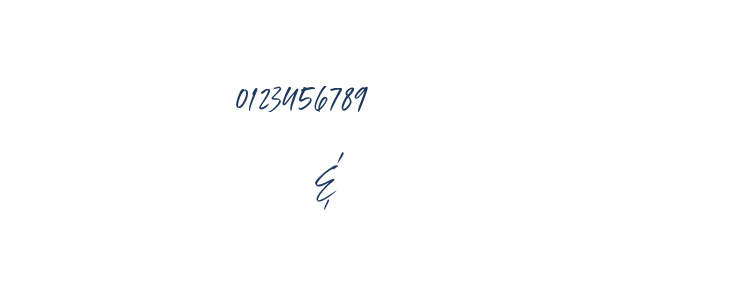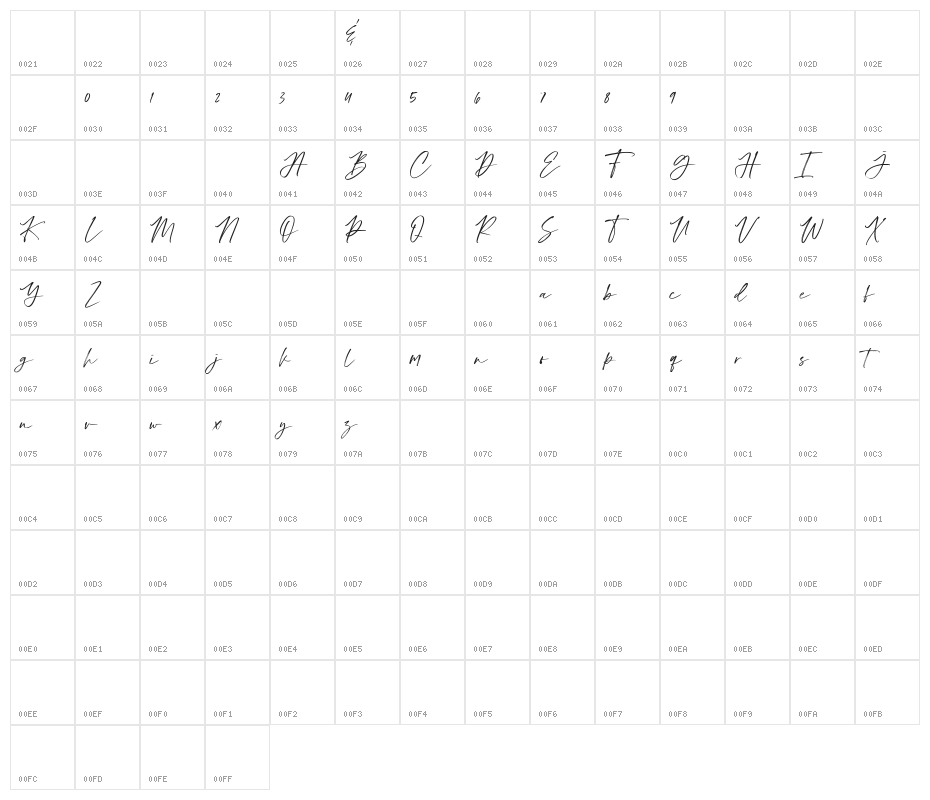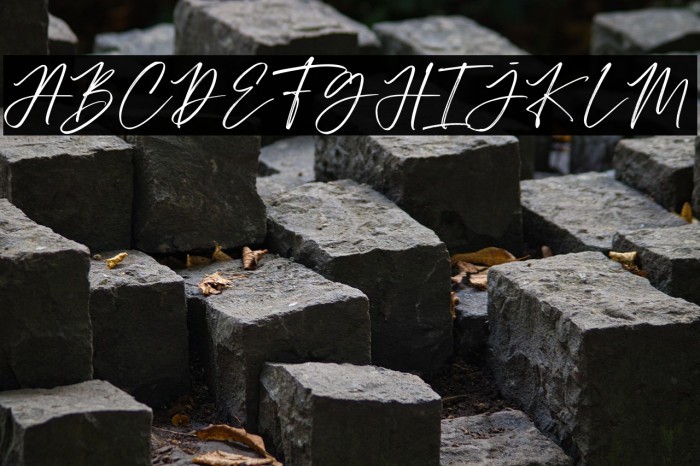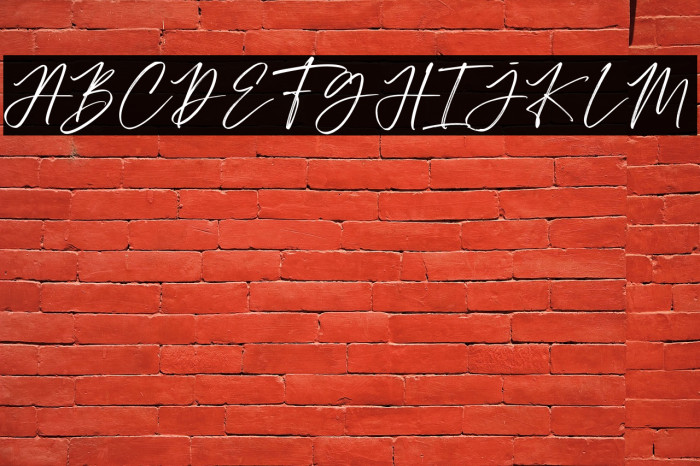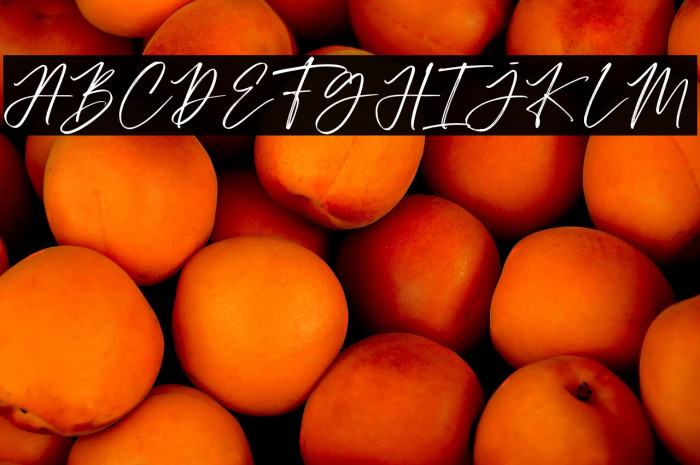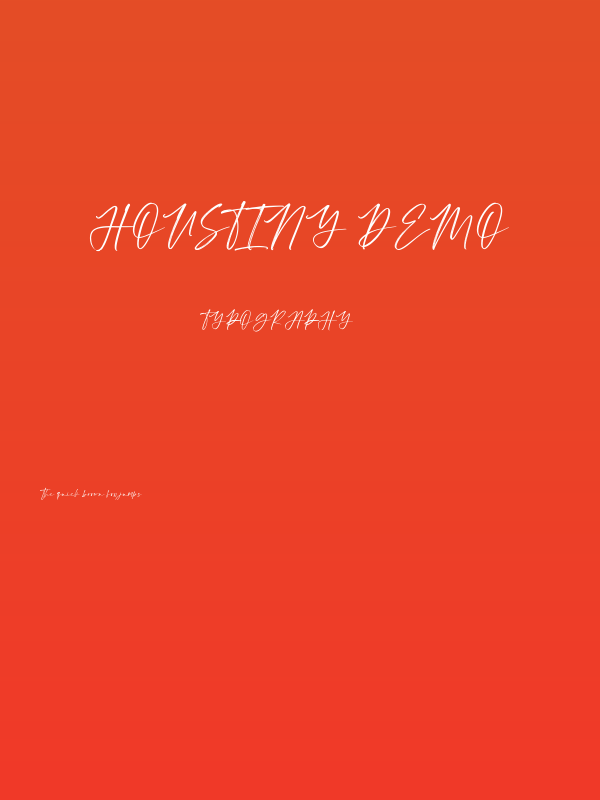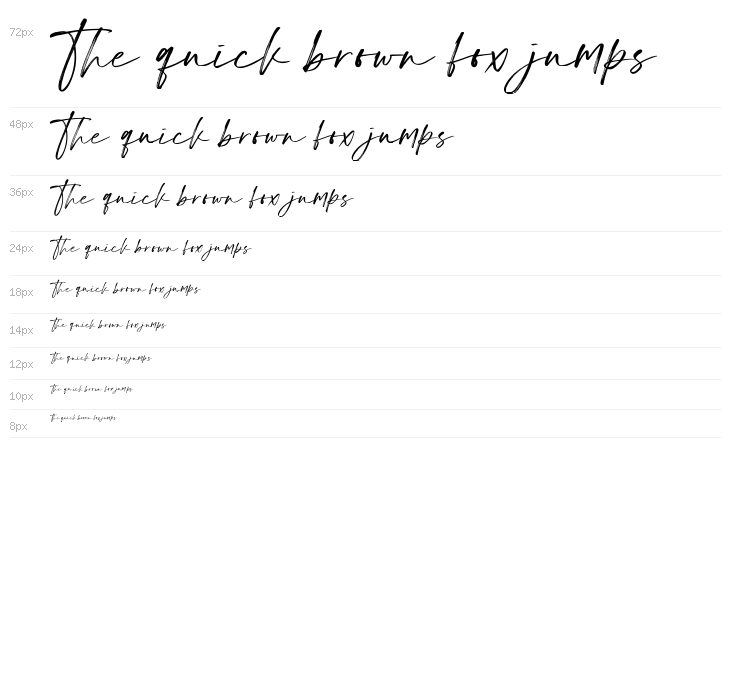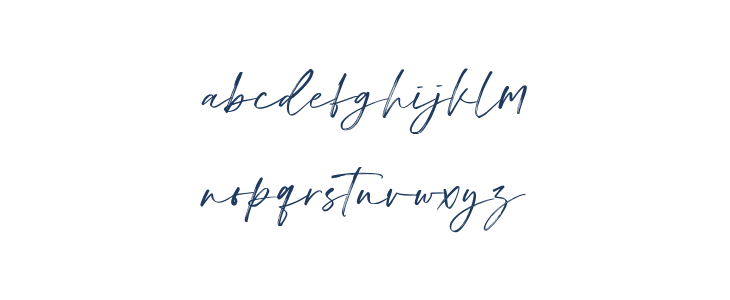
Houstiny Demo Font
Houstiny Demo Description
This font exudes a modern and elegant handwritten style, characterized by its fluid and cursive letterforms. The uppercase letters are bold and sweeping, with a graceful flow that suggests a sense of movement and sophistication. The lowercase letters maintain a consistent style, offering a seamless transition between characters. The numerals are clear and distinct, complementing the overall aesthetic. Special characters are thoughtfully designed to match the font's elegant theme. This font's artistic flair makes it ideal for creative projects that require a personal touch.
Use CaseLogos, Invitations, Greeting Cards
Proposed ProjectsIdeal for wedding invitations, personal branding, elegant logos, and greeting cards.